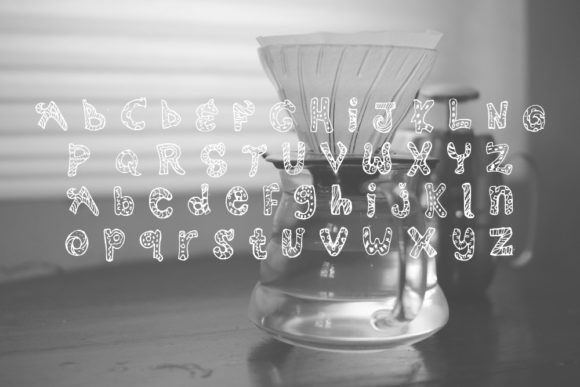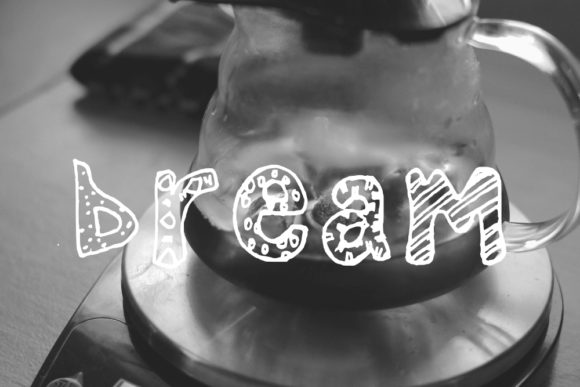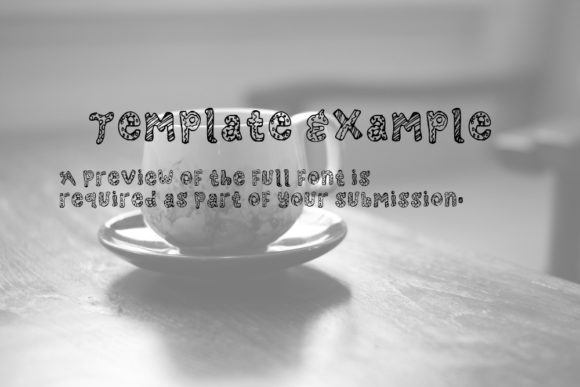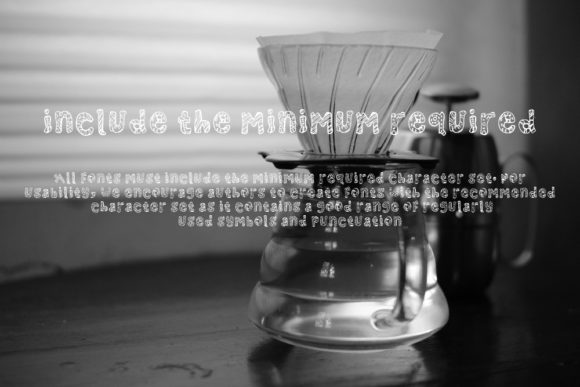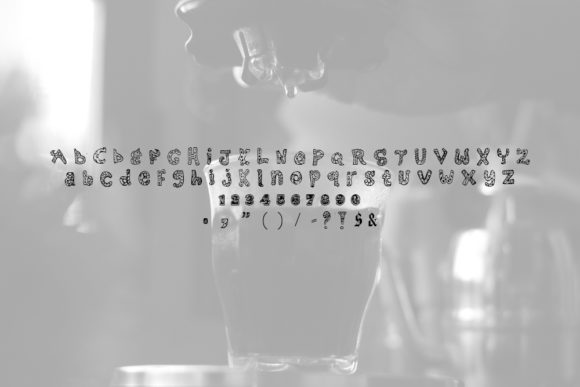
Introducing Ambyarita Font: The Sweet and Friendly Dingbats Font for Your Creative Projects
Are you a designer, crafter, or DIY enthusiast looking for a unique and versatile font to elevate your creative projects? Look no further than Ambyarita Font, a sweet and friendly dingbats font that’s perfect for a wide range of designs. With its natural and distinctive style, Ambyarita Font is sure to inspire your imagination and take your projects to the next level.
What is Ambyarita Font?
Ambyarita Font is a dingbats font that features a collection of charming and whimsical characters, including letters, numbers, and symbols. Its unique and hand-drawn design gives it a friendly and approachable feel, making it perfect for projects that require a personal touch. Whether you’re creating greeting cards, invitations, crafts, or digital graphics, Ambyarita Font is the perfect choice.
What Makes Ambyarita Font So Special?
So, what sets Ambyarita Font apart from other fonts? Here are just a few reasons why designers and crafters love this sweet and friendly font:
- Unique and distinctive style: Ambyarita Font has a one-of-a-kind design that’s sure to grab attention. Its natural and hand-drawn style gives it a warm and inviting feel that’s perfect for a wide range of projects.
- Versatile and flexible: Ambyarita Font is incredibly versatile and can be used for a wide range of projects, from digital graphics and social media posts to print materials like brochures, flyers, and business cards.
- Imagination is the only limit: With Ambyarita Font, the possibilities are endless. Use it to create beautiful hand-lettered quotes, decorate your digital graphics, or add a personal touch to your crafts and DIY projects.
How to Use Ambyarita Font in Your Projects
Ambyarita Font is perfect for a wide range of projects, including:
- Greeting cards and invitations: Add a personal touch to your greeting cards and invitations with Ambyarita Font’s charming and whimsical characters.
- Digital graphics and social media posts: Use Ambyarita Font to create eye-catching digital graphics and social media posts that are sure to grab attention.
- Crafts and DIY projects: Add a touch of personality to your crafts and DIY projects, such as scrapbooking, journaling, and handmade gifts.
- Print materials: Use Ambyarita Font in your print materials, such as brochures, flyers, business cards, and posters.
Tips and Tricks for Getting the Most Out of Ambyarita Font
Here are a few tips and tricks for getting the most out of Ambyarita Font:
- Experiment with different colors and textures: Ambyarita Font looks great in a variety of colors and textures. Experiment with different combinations to find the one that works best for your project.
- Mix and match with other fonts: Ambyarita Font pairs well with other fonts, so don’t be afraid to mix and match it with your favorite fonts to create a unique and interesting look.
- Use it to add a personal touch: Ambyarita Font is perfect for adding a personal touch to your projects. Use it to create hand-lettered quotes, decorate your digital graphics, or add a special message to your greeting cards and invitations.
Ambyarita Font is a sweet and friendly dingbats font that’s perfect for designers, crafters, and DIY enthusiasts. Its unique and distinctive style makes it incredibly versatile and flexible, and its ease of use makes it accessible to everyone. Whether you’re creating digital graphics, print materials, or crafts and DIY projects, Ambyarita Font is the perfect choice. So why wait? Download Ambyarita Font today and let your imagination run wild!